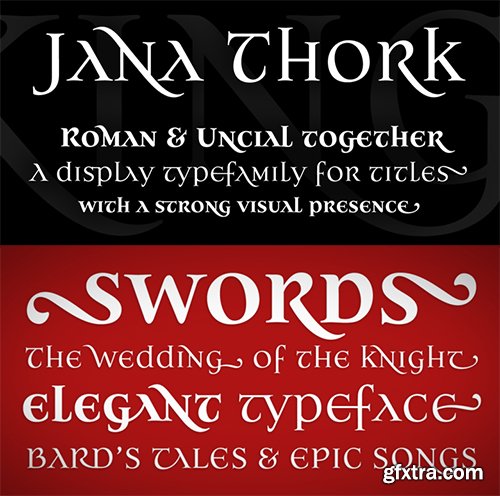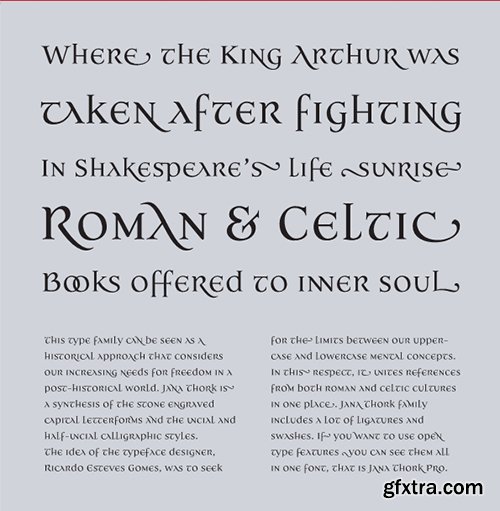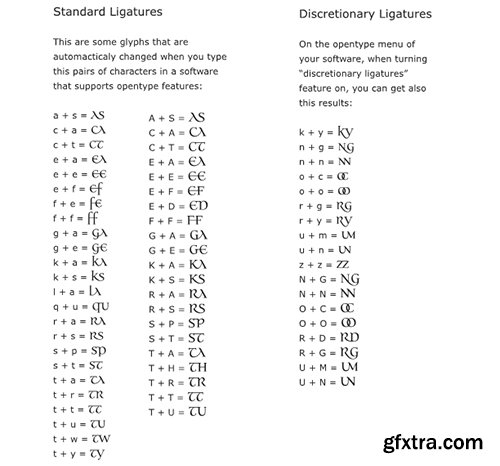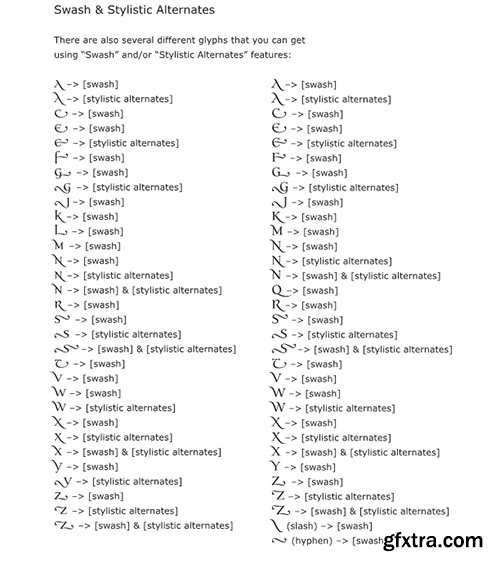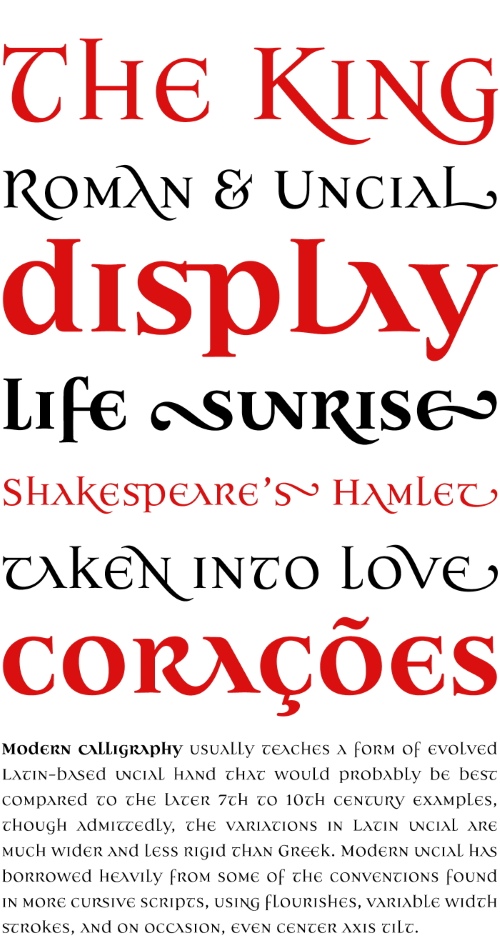
- This type family can be seen as a historical approach that considers our increasing needs for freedom in a post-historical world. Jana Thork is a synthesis of the stone engraved capital letterforms and the uncial and half-uncial calligraphic styles.The idea of the typeface designer, Ricardo Esteves Gomes, was to seek the limits between our uppercase and lowercase mental concepts. In this respect, it unites references from both Roman and Celtic cultures in one place.The Jana Thork family includes more than 120 extras including ligatures and swashes. If you want to use open type features you can see them all (ligatures, swashes and fractions) in one font file, that is Jana Thork Pro.This family can be useful to compose titles, short texts and letterings that need to look attractive to the eye.The family now also includes Jana Thork Bold versions and Jana Thork Pro Bold - a complement to this font family that can be used in graphic designs that need more complex hierarchic relations or greater visual impact.